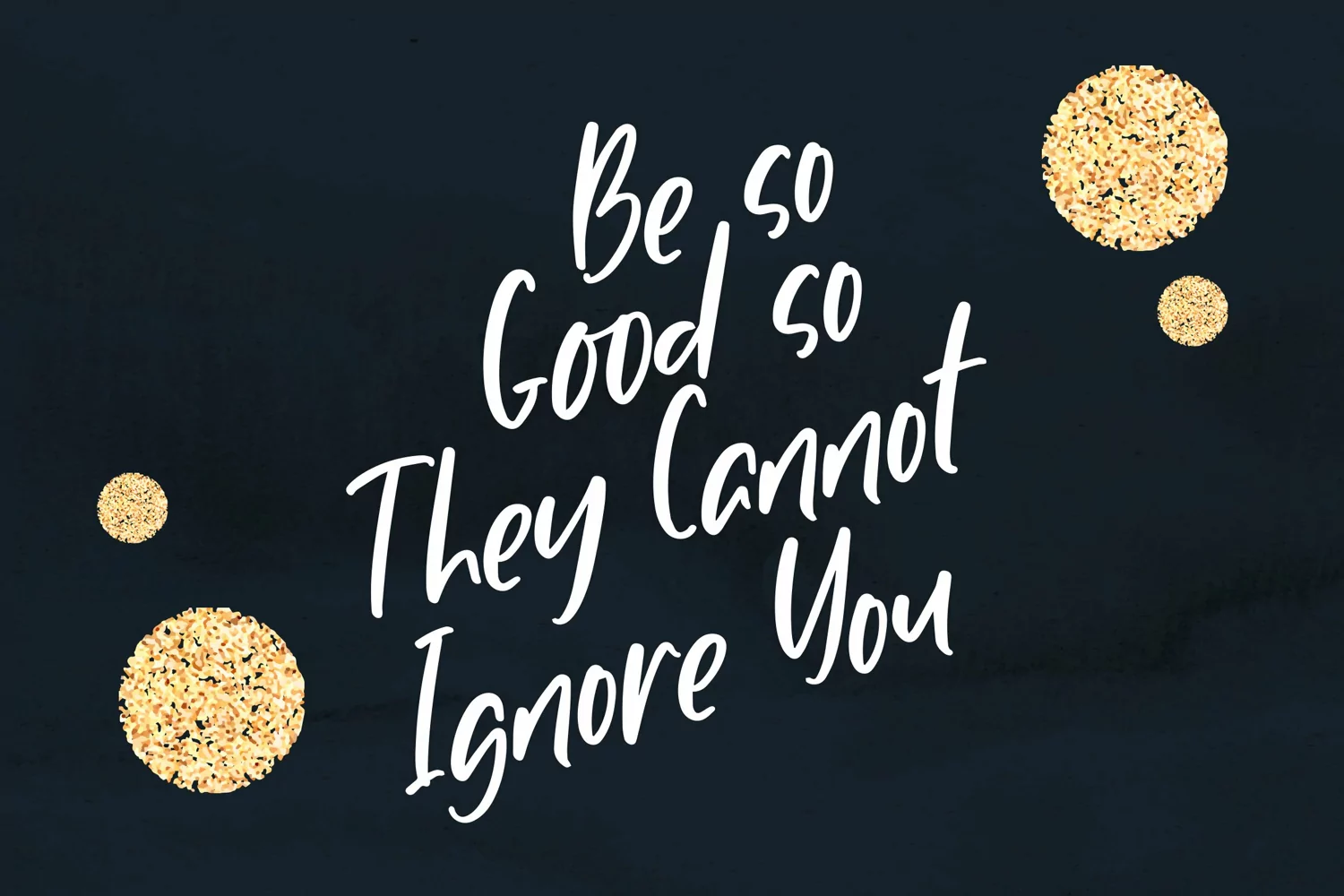
Nightingale - Handcrafted Font that contain lowercase, uppercase, symbol, and also support multi language. There’s a lot ligatures in this font. This Font also comes with ligatures, alternates and many more. this font suitable for fashion, branding, catalog and other design what you want.